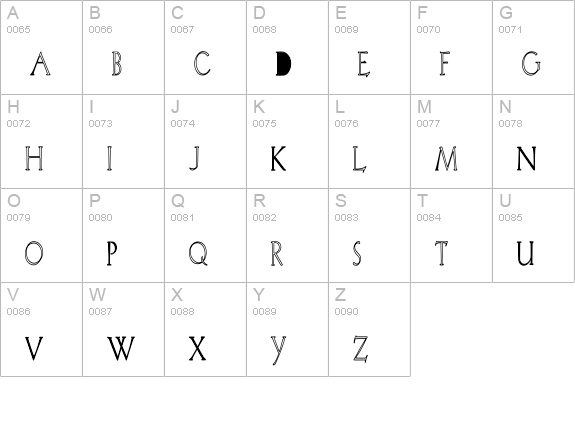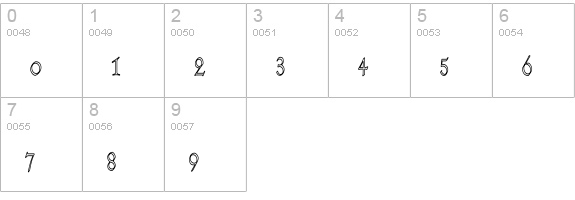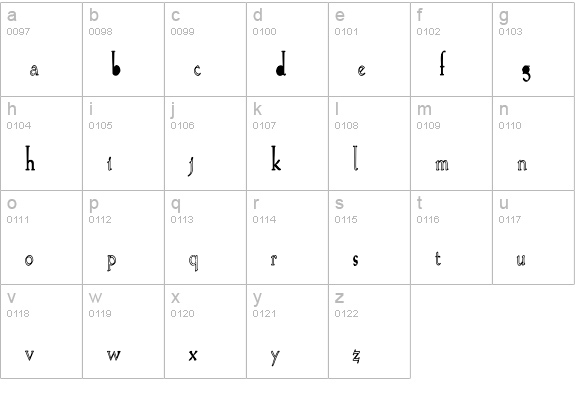
KochRomanHC is a modern and elegant serif font that exudes sophistication and timeless charm. Its clean lines and classic design make it perfect for a wide range of projects, from branding to editorial layouts. With its balanced proportions and distinctive letterforms, KochRomanHC adds a touch of sophistication to any design. What sets KochRomanHC apart is not only its timeless appeal but also the fact that it is available for free. That's right, you can download this stunning font for free at FontsMarket.com. Whether you're a designer looking to elevate your projects or a business owner seeking a polished look for your branding, KochRomanHC is the perfect choice. Don't miss out on the opportunity to add this versatile and stylish font to your collection today.